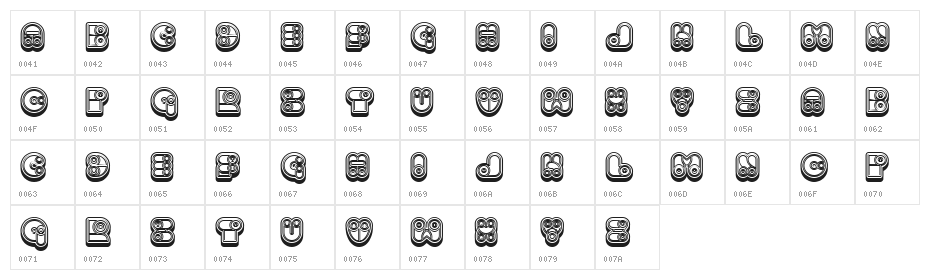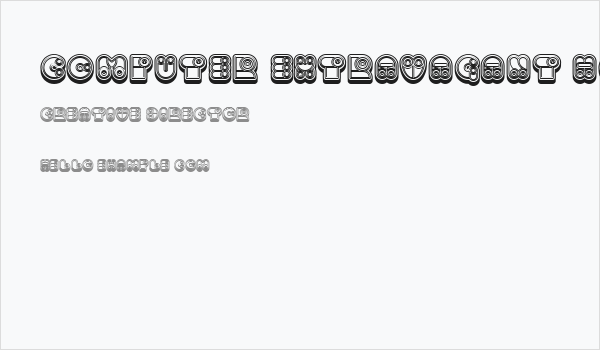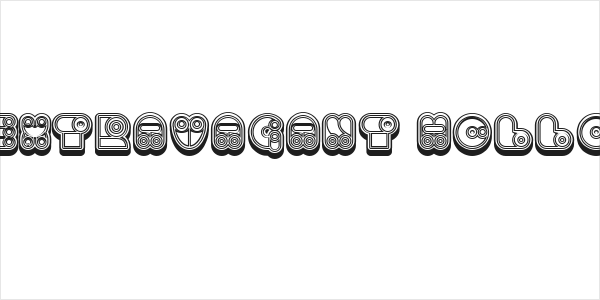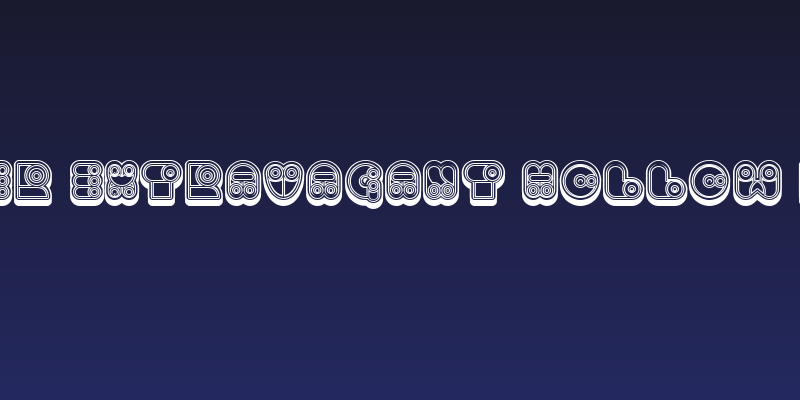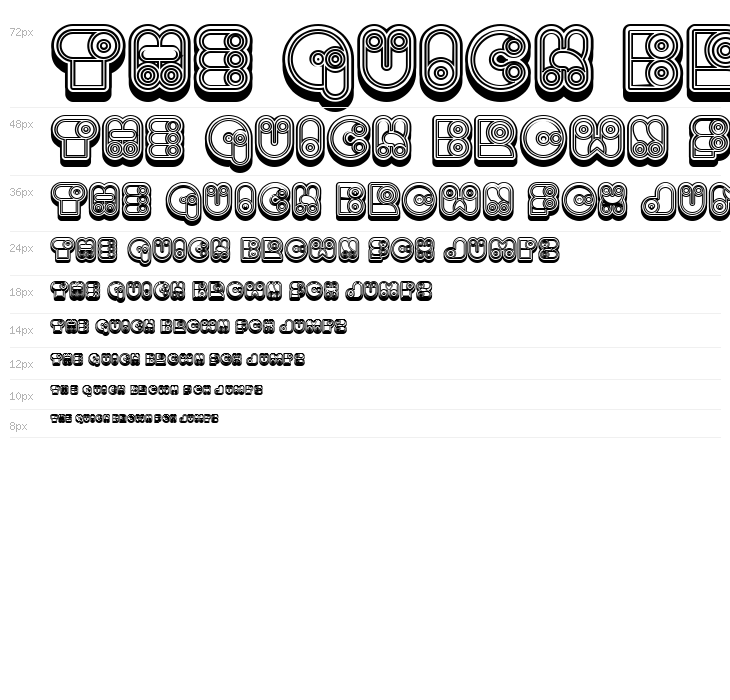
Computer Extravagant Hollow Regular Font
Computer Extravagant Hollow Regular Description
This font is a bold and decorative typeface with a hollow, extravagant design. Each character is crafted with multiple concentric outlines, creating a layered and dimensional effect. The letters are rounded and feature a playful, almost whimsical style, making them stand out with a unique personality. The font's design is consistent across uppercase and lowercase letters, as well as numbers and special characters, maintaining its distinct appearance. The intricate detailing and bold outlines make it suitable for eye-catching designs.
Proposed ProjectsIdeal for posters, logos, and creative projects that require a standout, artistic touch.